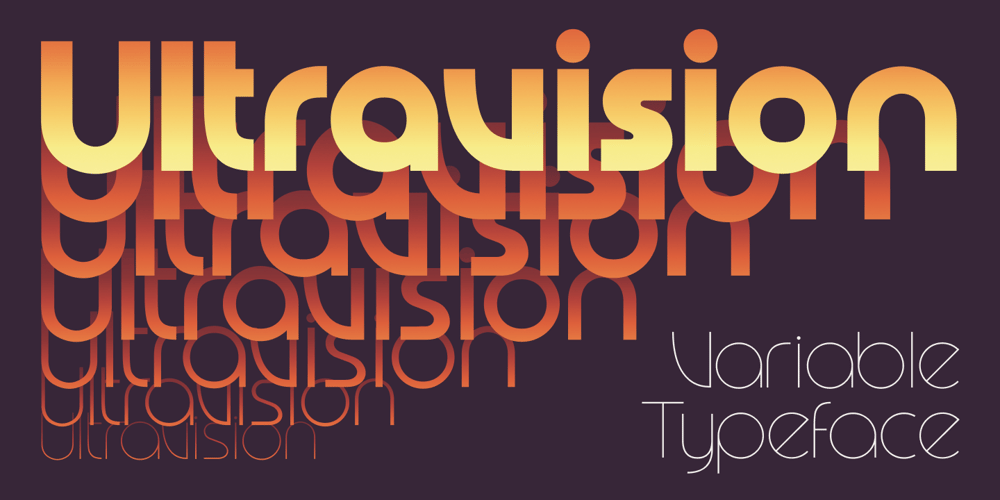
Ultravision Font Family was designed by Daniel Feldt and published by Great Scott. Ultravision contains 6 styles and family package options. Introducing “Ultravision,” a geometric sans serif font that artfully fuses the charm of the past with the clarity of the future. This typeface draws inspiration from timeless classics such as ITC Busorama, Herbus, and Marvin, yet it distinguishes featuring both uppercase and lowercase characters.A harmonious blend of vintage allure and modern sophistication, Ultravision embodies a retro aesthetic. Its geometric structure lends an unambiguous and clean feel, making it perfect for a wide range of applications, from bold headlines to subtle captions.Ultravision is also available as a variable font with variable weight support. Ultravision includes over 300 glyphs for lots of languages support.